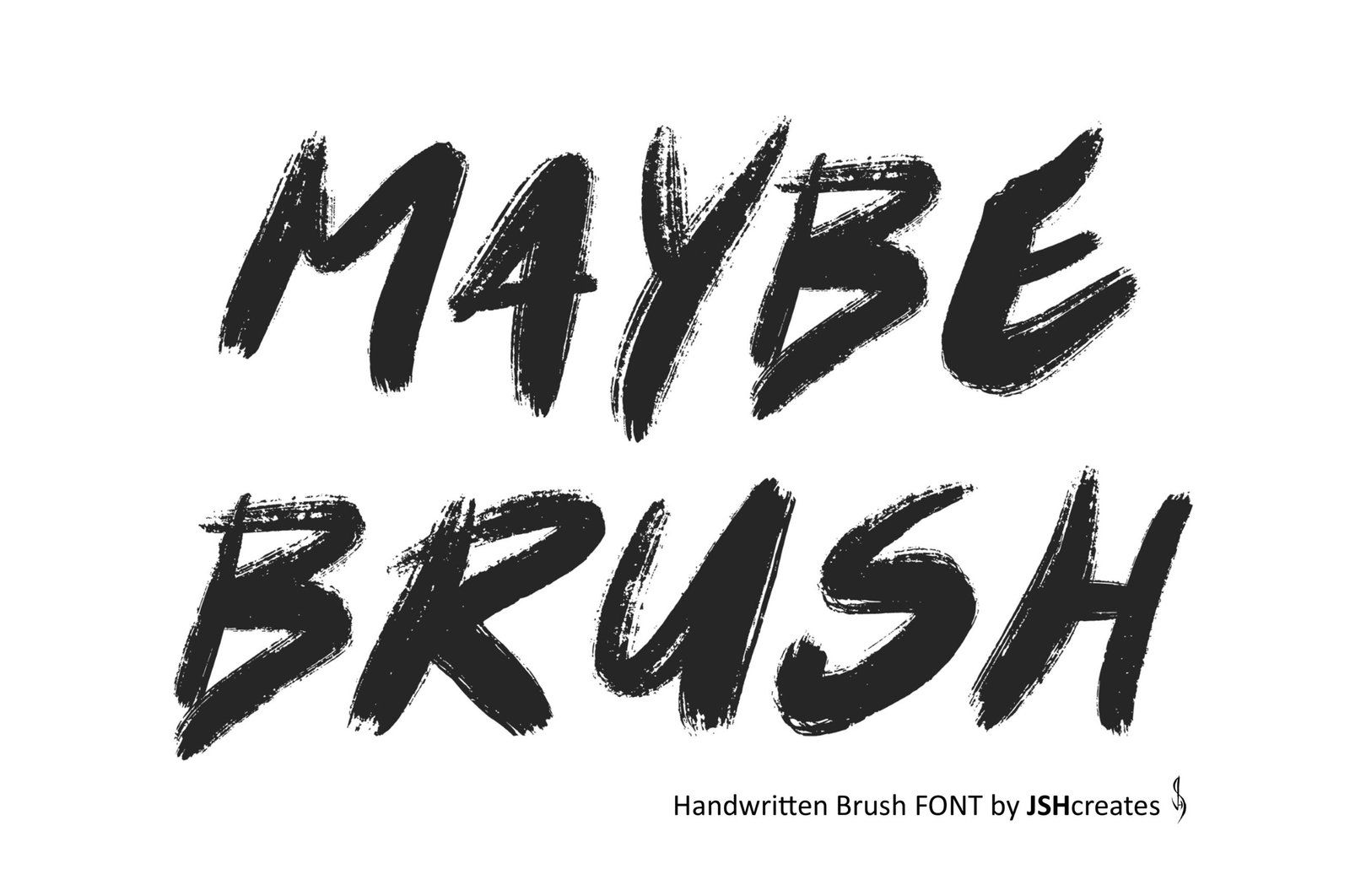
Maybe Brush Font
Handwritten Brush font. “Maybe Brush”. Perfect for advertising and display purposes, including banners, book covers, shirts, posters, logos and much more!
This is an ALL CAPS font, including numbers, characters and punctuation.